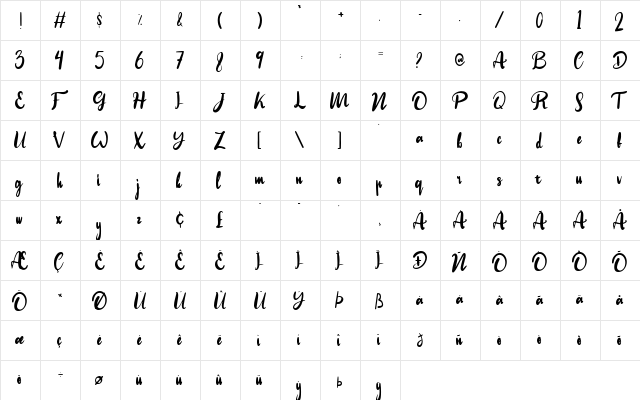
Love Whisper Regular
| Foundry | Helotype Co. |
| Designer | Heloyud |
Design Context for Love Whisper Typeface
Love Whisper is a composed and adaptable typeface that performs quietly and consistently across a wide range of design contexts.